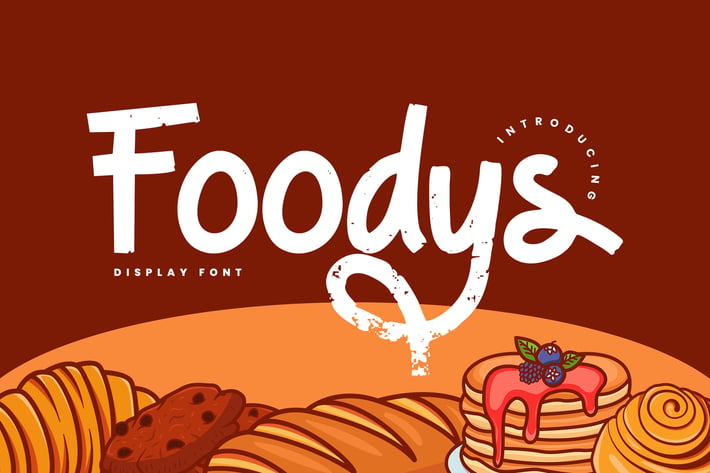
Foodys - Food Display Font
Foodys - Food Display Font is an awesome with modern cutouts, and a dynamic slant. Ideal for Poster titles, menu flyer, Packaging, Logo and monograms or other modern dynamic text. Foodys compares favorably with legibility and size, creating the effect of power. Designed as a fast and dynamic font, but with a slightly different font design, check it out and grab it right away.